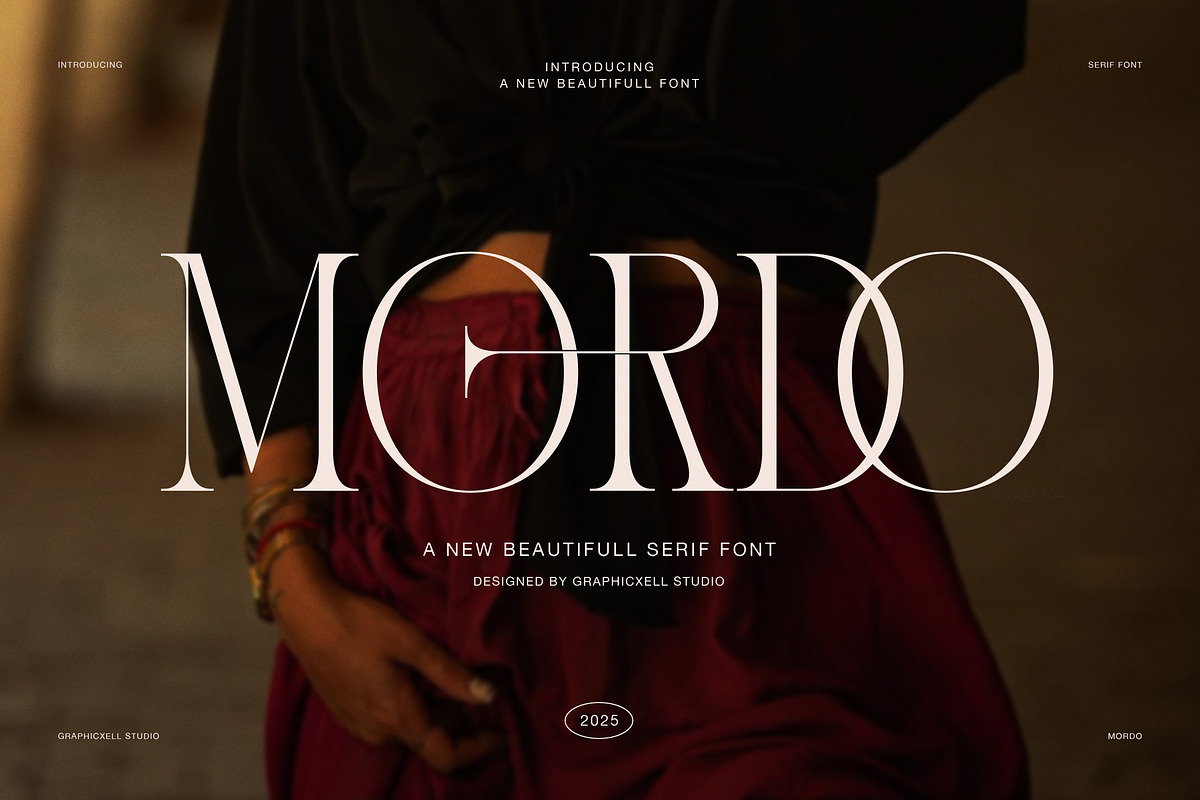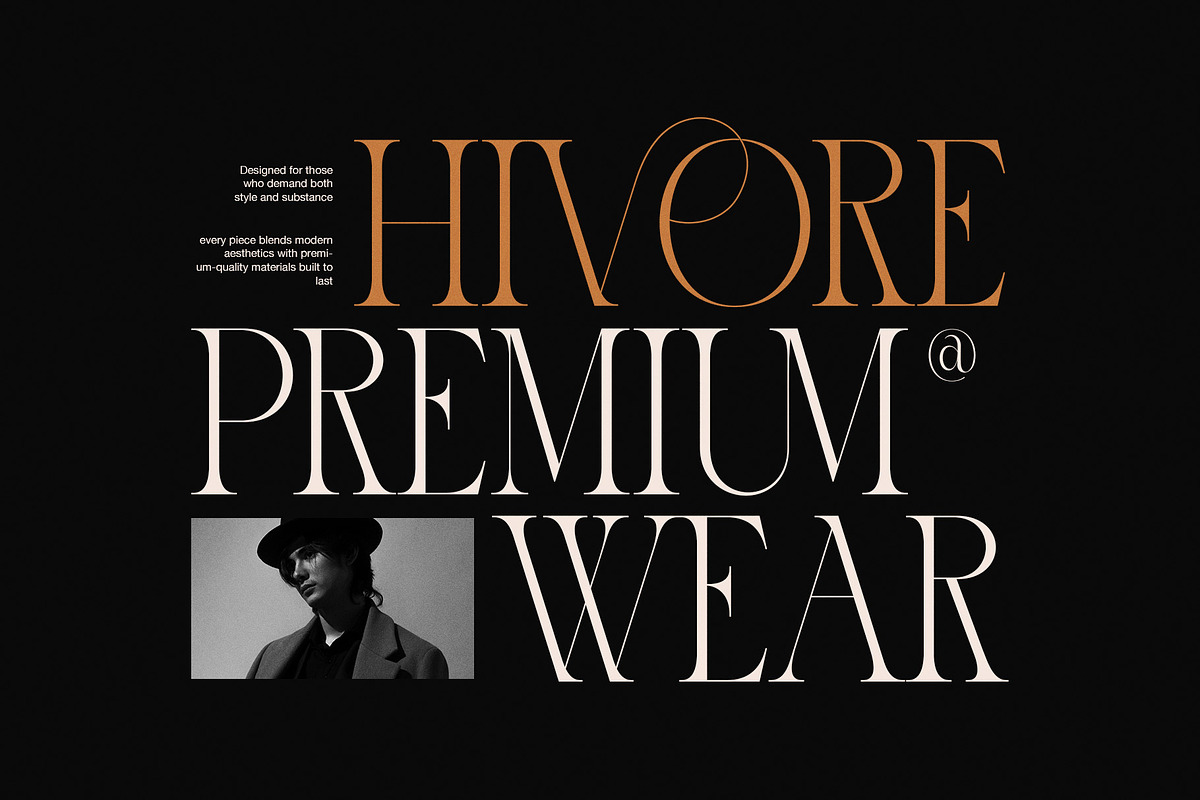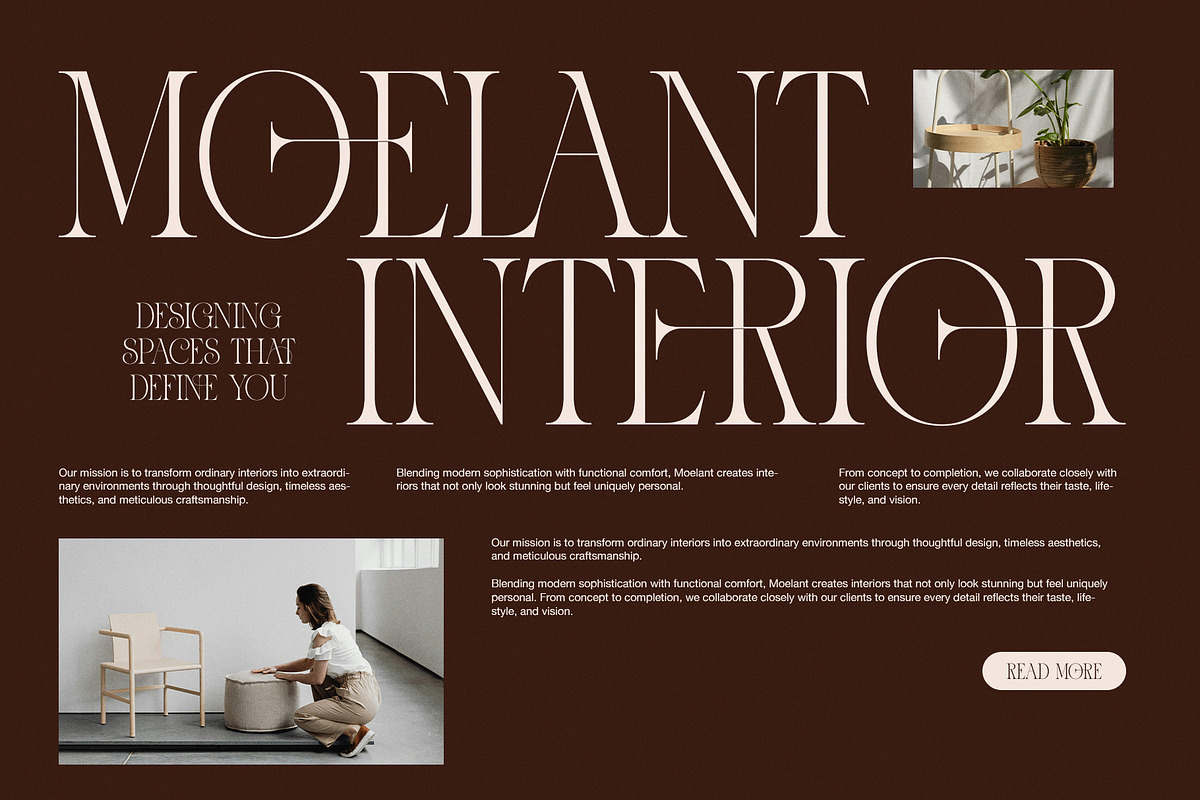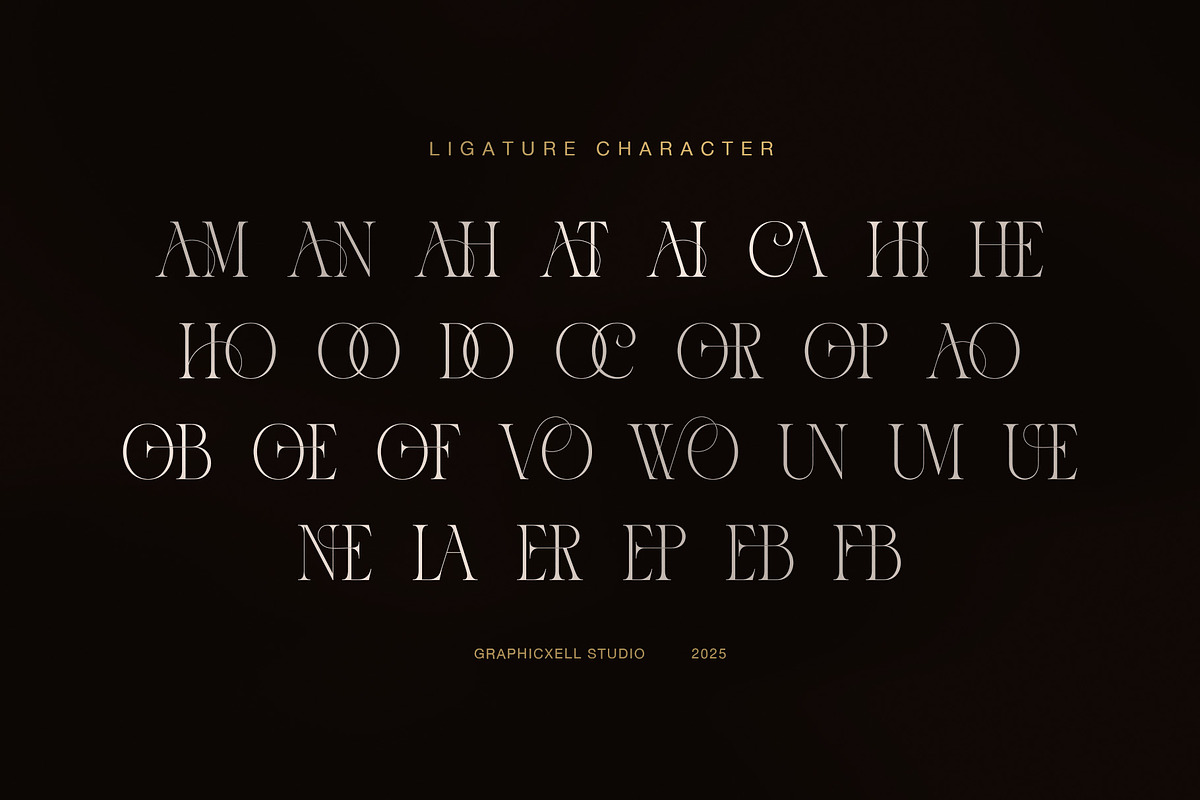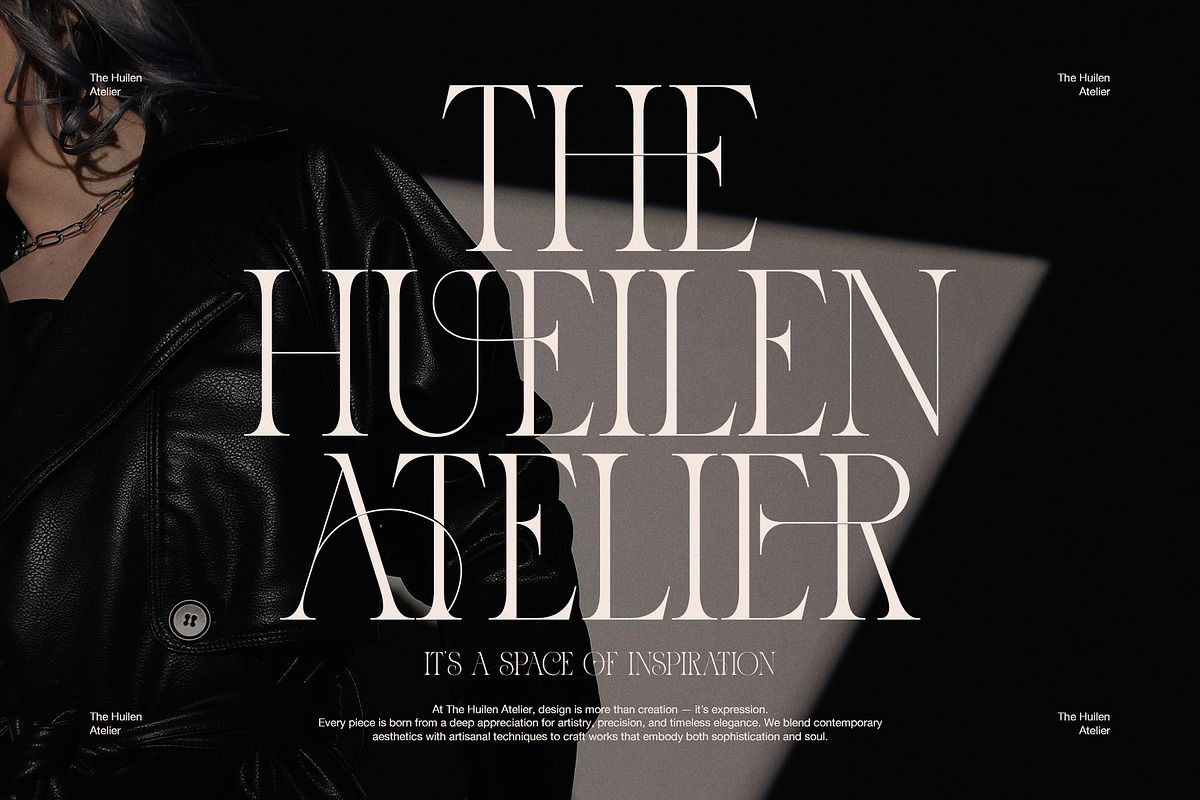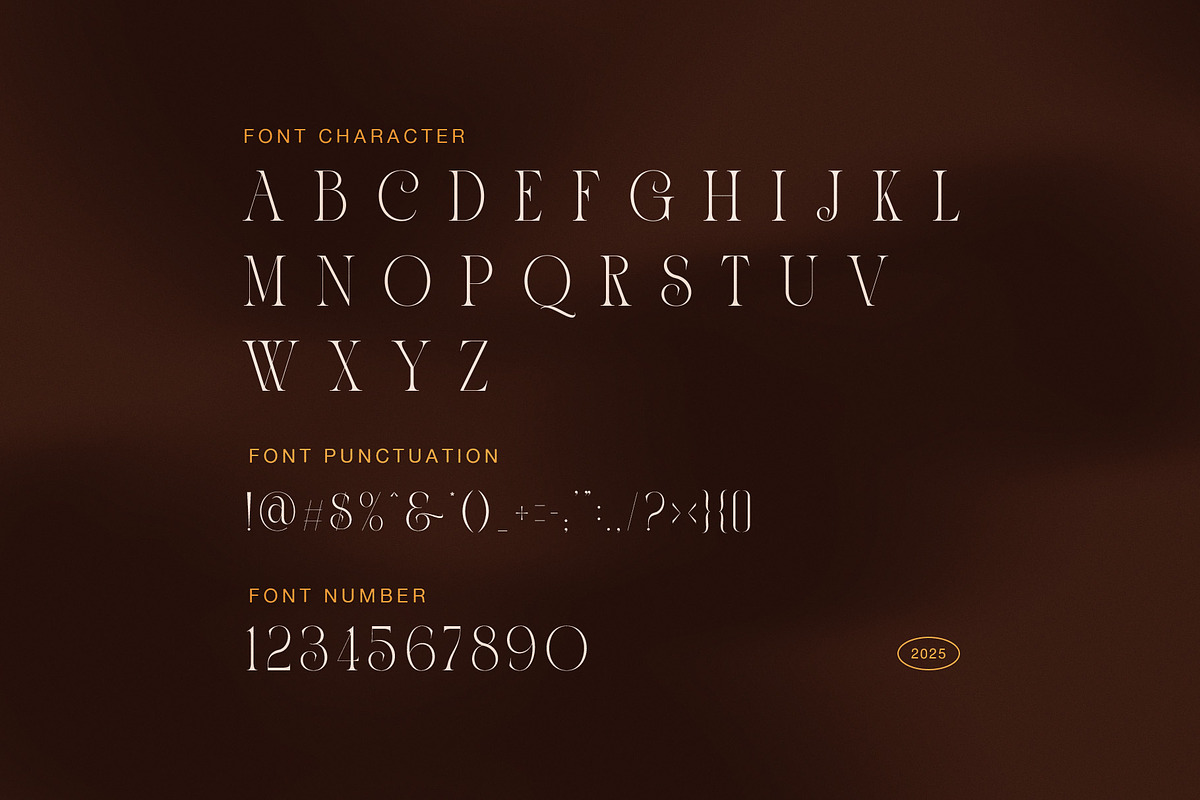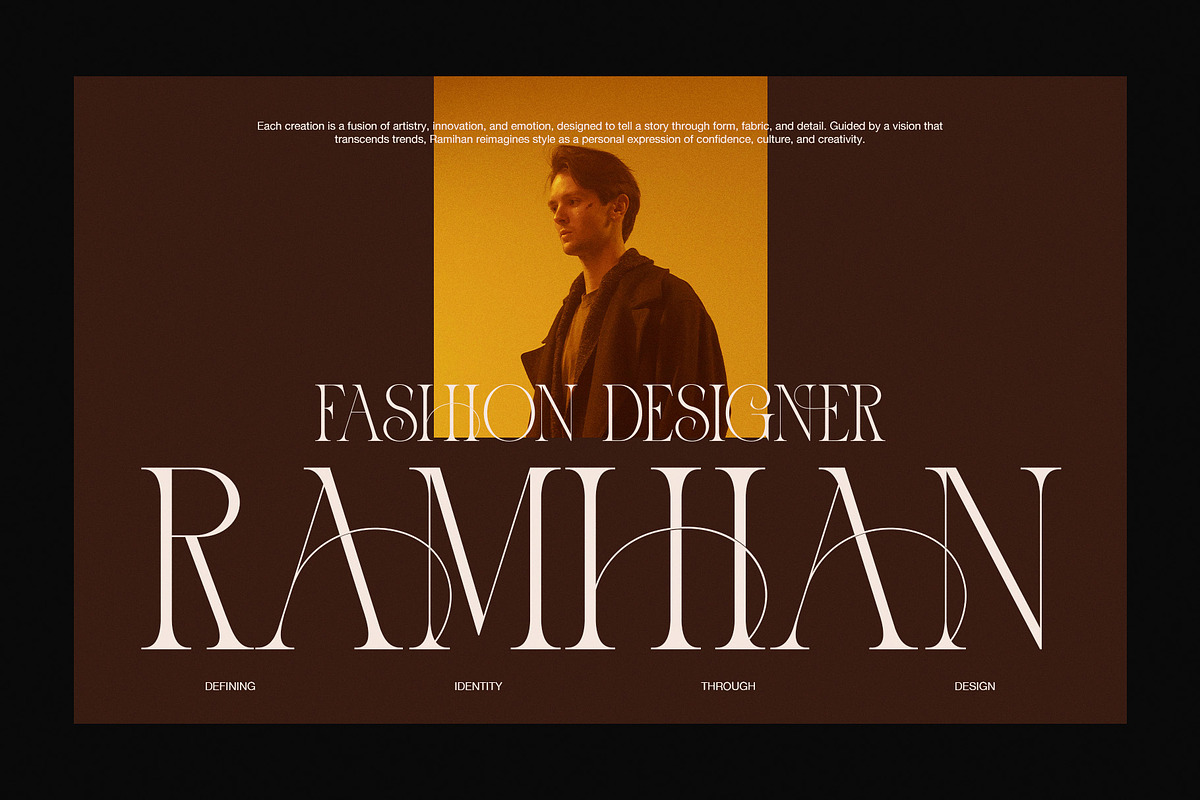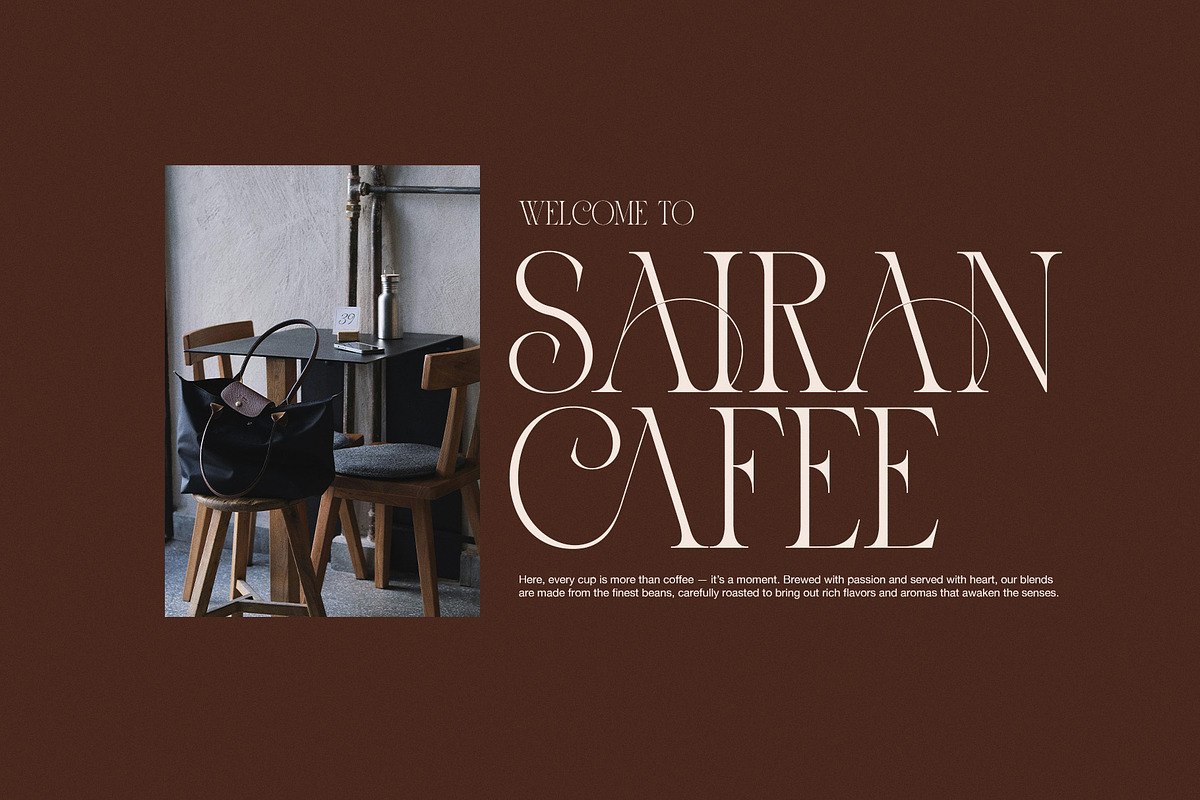
Mordo Elegant Modern Serif Font
Mordo is an elegant modern serif font created to express strength, luxury, and contemporary sophistication. It features tall letterforms, refined contrast, and confident proportions. Because every stroke feels intentional, Mordo delivers impact without losing elegance.
This serif font blends editorial tradition with modern fashion aesthetics. As a result, designers choose Mordo for premium branding, magazine layouts, and bold headlines. Moreover, its refined ligatures add visual rhythm while keeping compositions balanced and clean. Each character feels sharp, expressive, and timeless.
Mordo supports designers who want authority and style. Therefore, it works perfectly for fashion labels, interior studios, luxury cafés, and lifestyle brands. In addition, it performs beautifully in large display sizes, where contrast and structure matter most.
Why choose Mordo Serif Font?
Elegant serif design with strong modern presence
Refined ligatures for expressive typography
High readability for print and digital use
Ideal for fashion, interior, and editorial branding
Timeless structure with contemporary confidence
Furthermore, Mordo adapts smoothly across creative industries. Whether you design for clothing brands, architecture studios, or premium services, this font adds confidence and polish. Because spacing remains controlled, Mordo pairs perfectly with clean sans-serif fonts.
Mordo does more than present text. Instead, it defines mood and identity. Each serif feels precise, while every curve supports visual harmony. Consequently, your designs appear bold, elegant, and memorable.
Ultimately, Mordo delivers a modern serif solution for designers who seek luxury and strength. Use it to elevate branding, enhance editorials, and communicate premium quality with clarity.